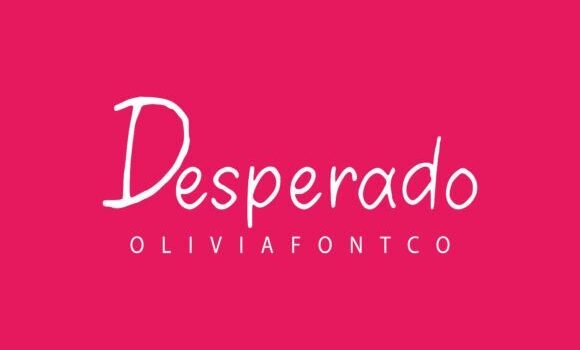
Desperado Font – Free Download Introduction to Desperado Font Desperado font is an authentic handwritten font with a romantic touch. 📸 Preview Gallery 2 images 📌 Product Name Desperado Font 👤 Author OliviaFontCo 📂 Category Explore ⬇️ Download Desperado Font